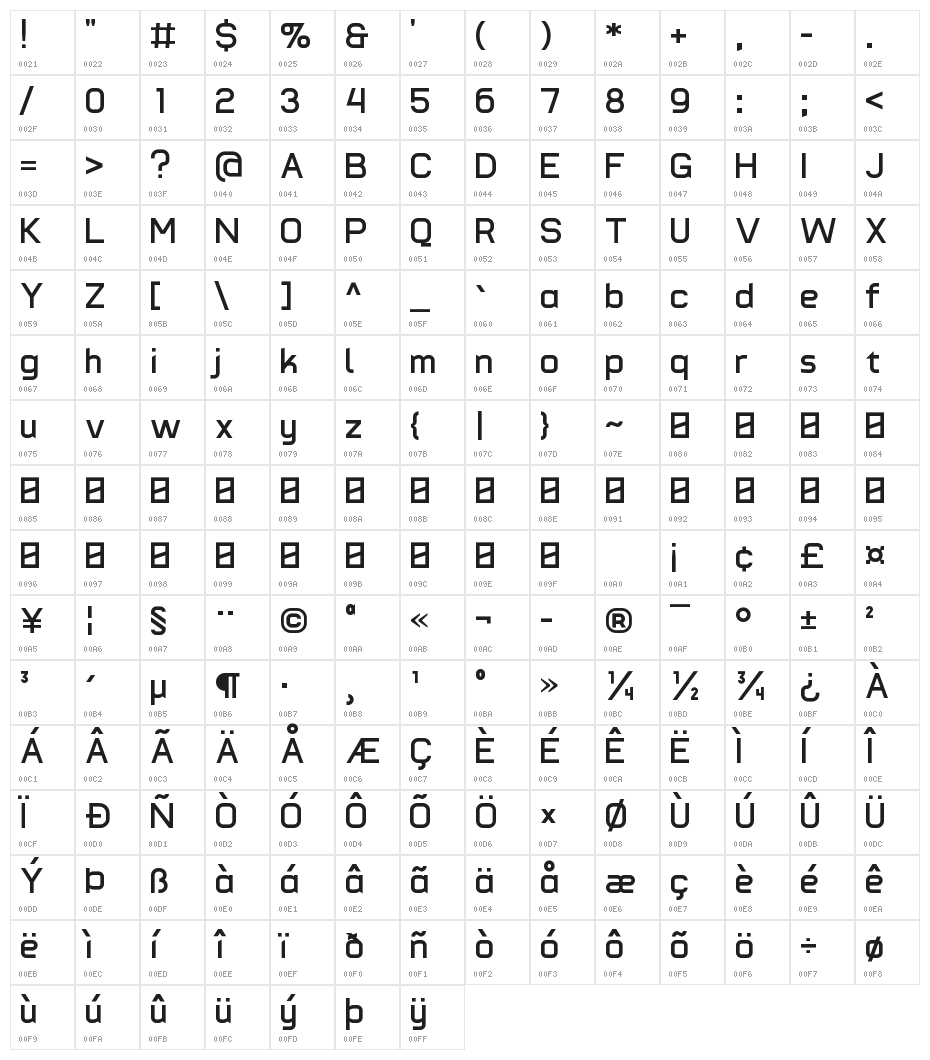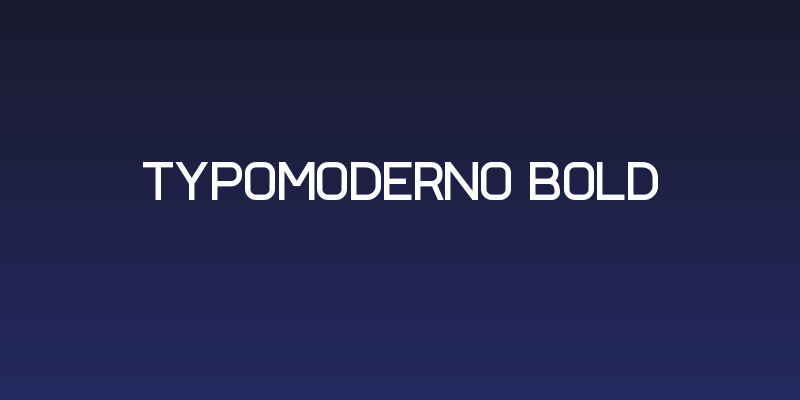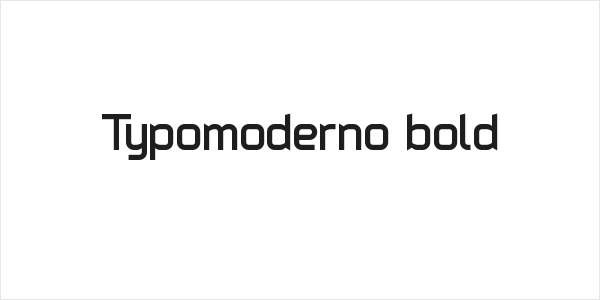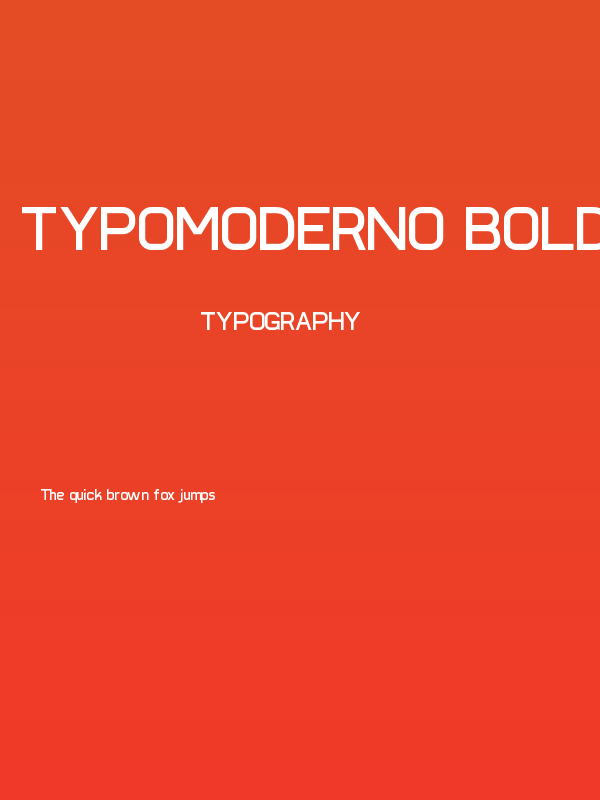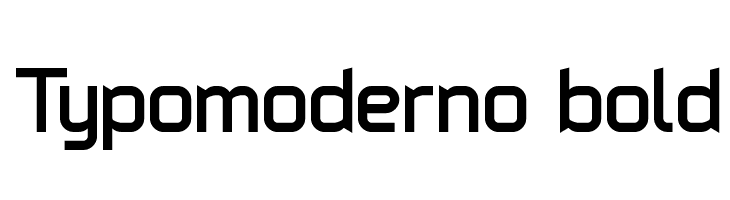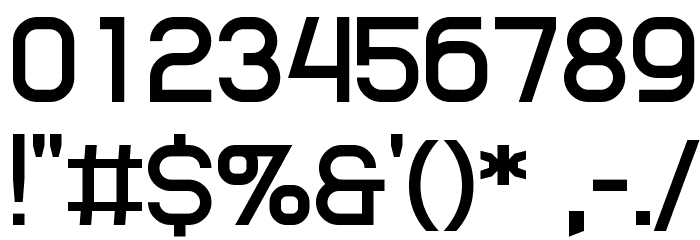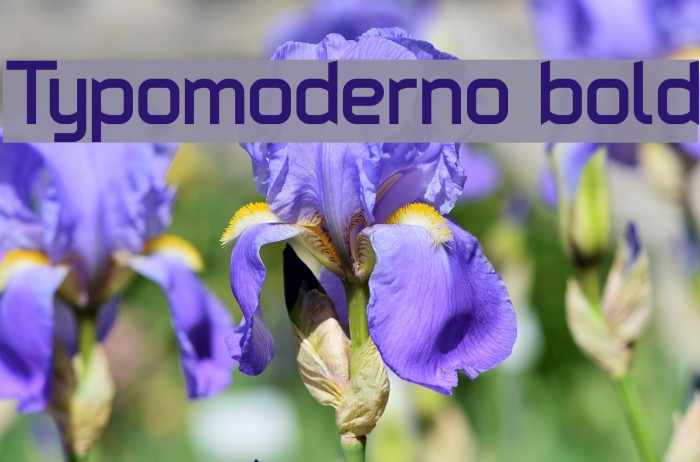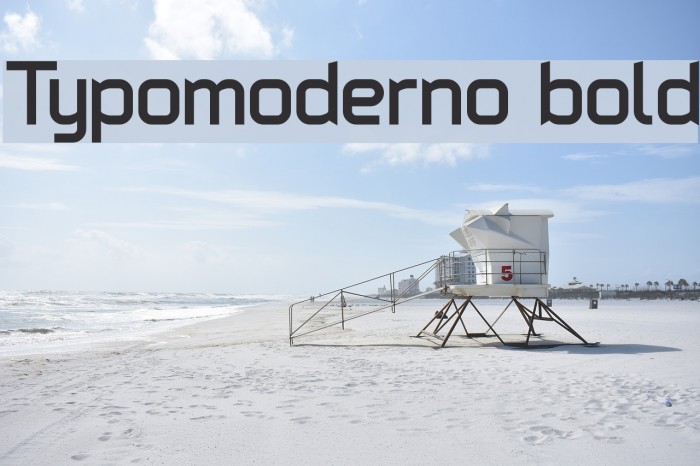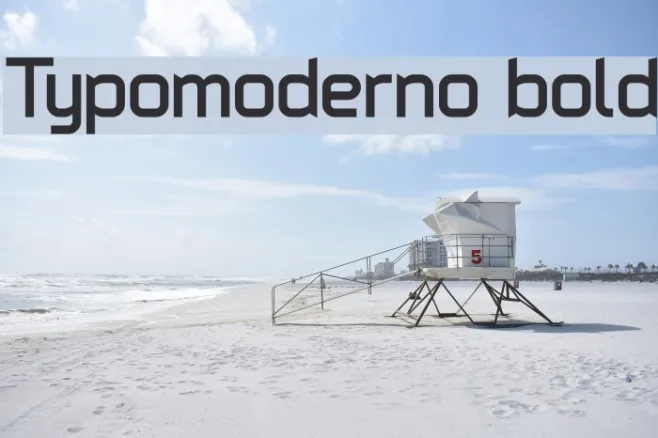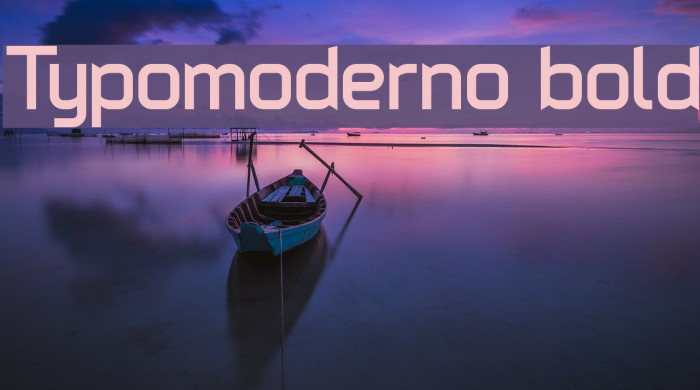
Typomoderno bold Font
Typomoderno bold Description
This font features a bold, geometric sans-serif style with clean lines and a modern aesthetic. The uppercase and lowercase letters are well-proportioned, maintaining a consistent stroke width throughout. The numerals are distinct and easy to read, complementing the overall design. Special characters are included, providing versatility for various applications. The font's structure is straightforward, making it suitable for both digital and print media. Its boldness ensures high visibility, making it ideal for attention-grabbing headlines and titles.
| Proposed Projects | Ideal for branding, advertising, headlines, posters, and digital media where a modern and bold statement is needed. |